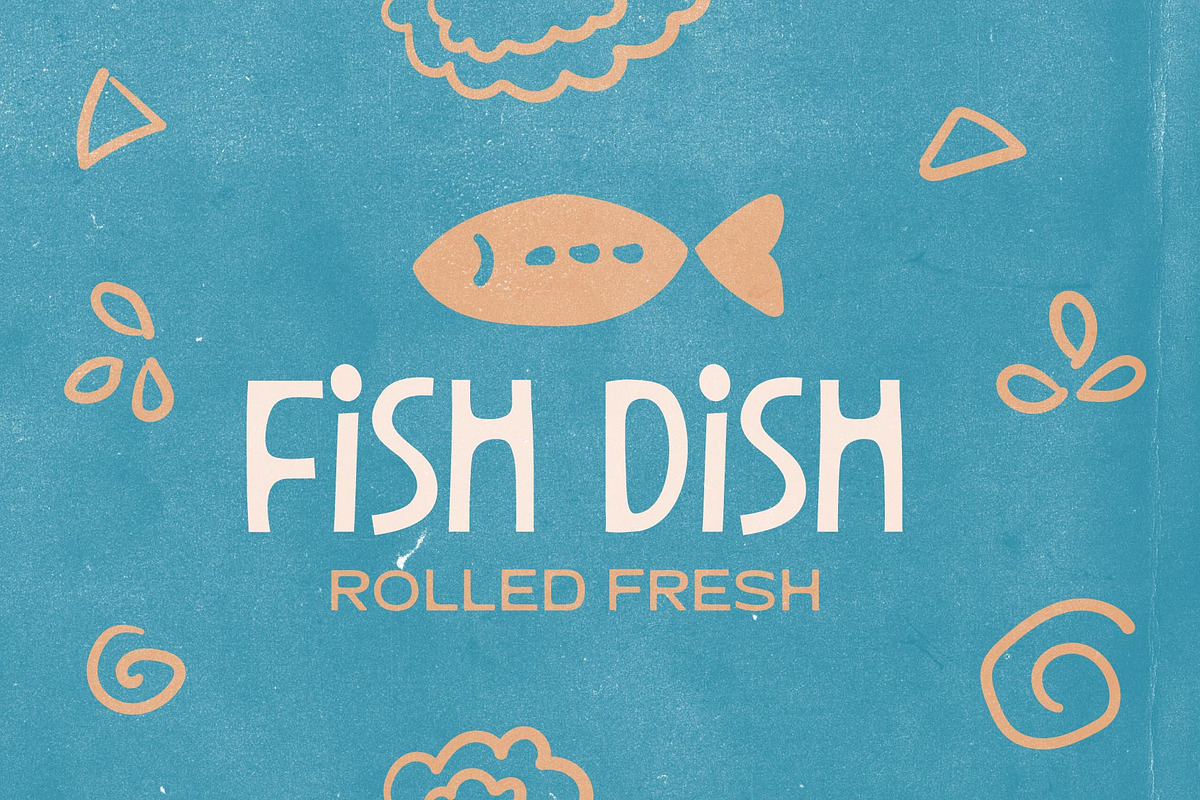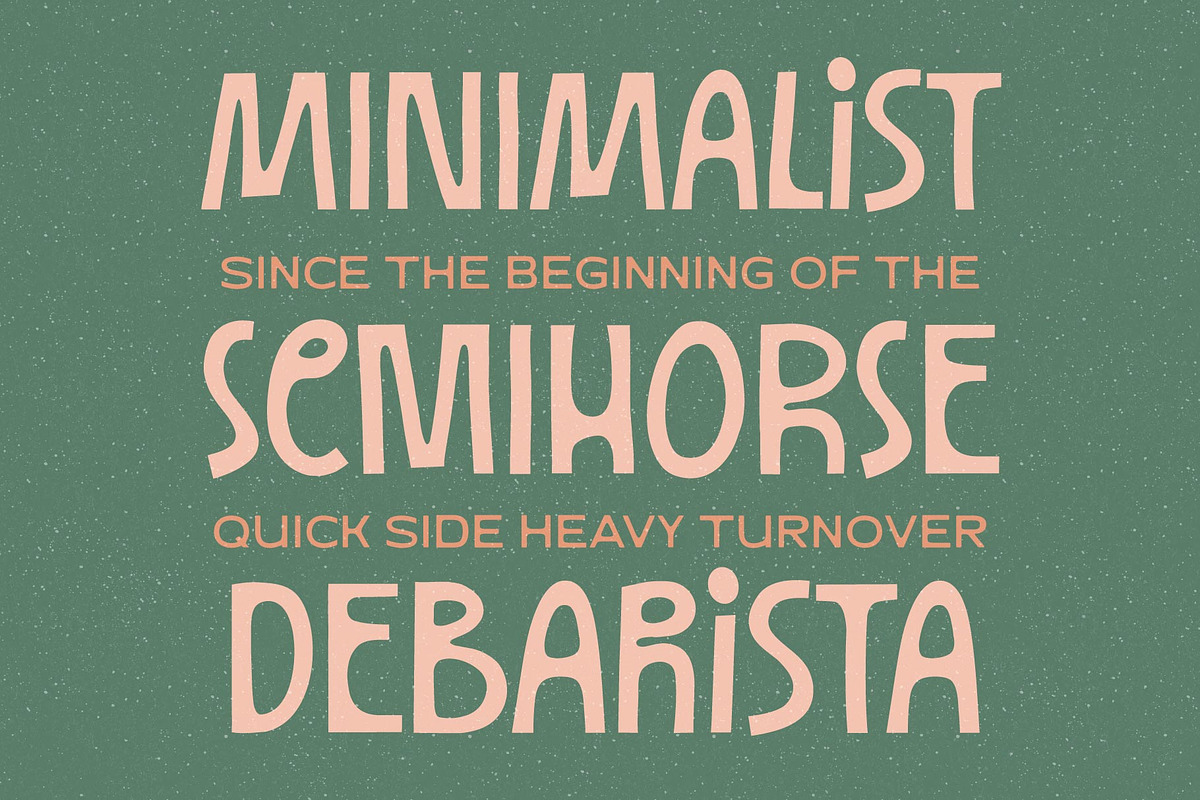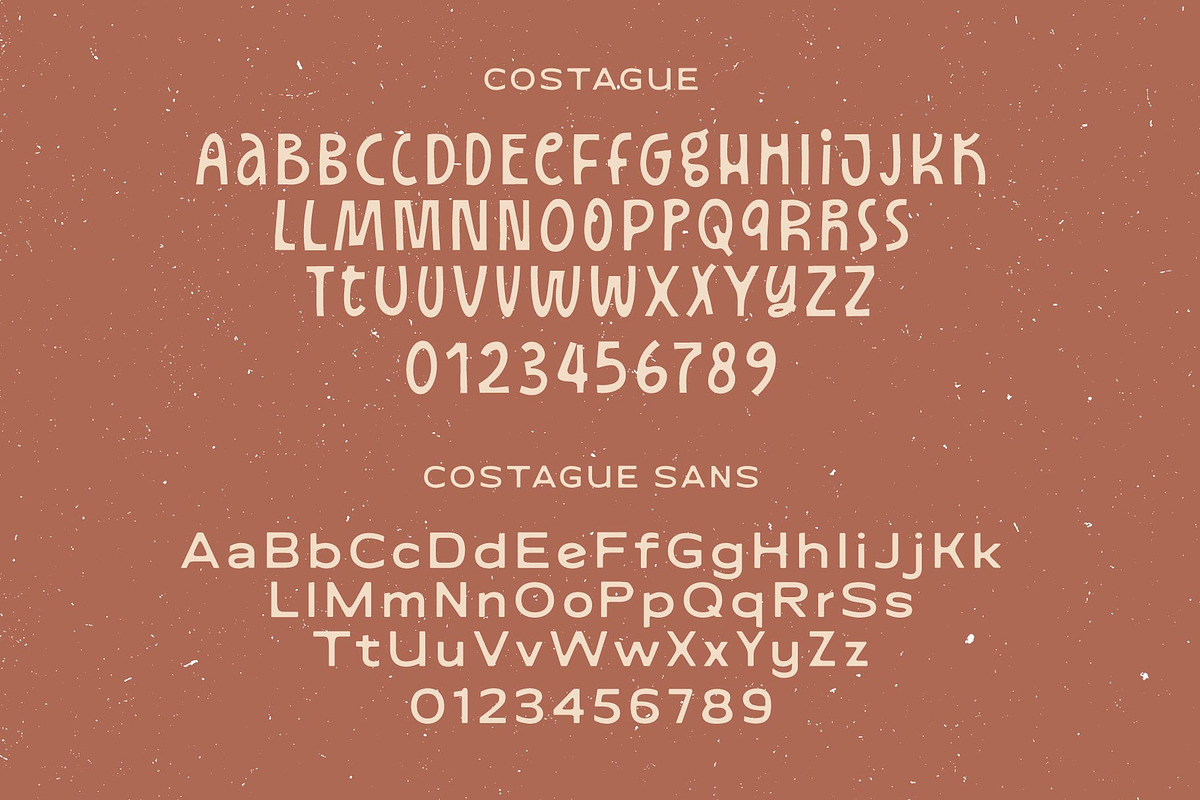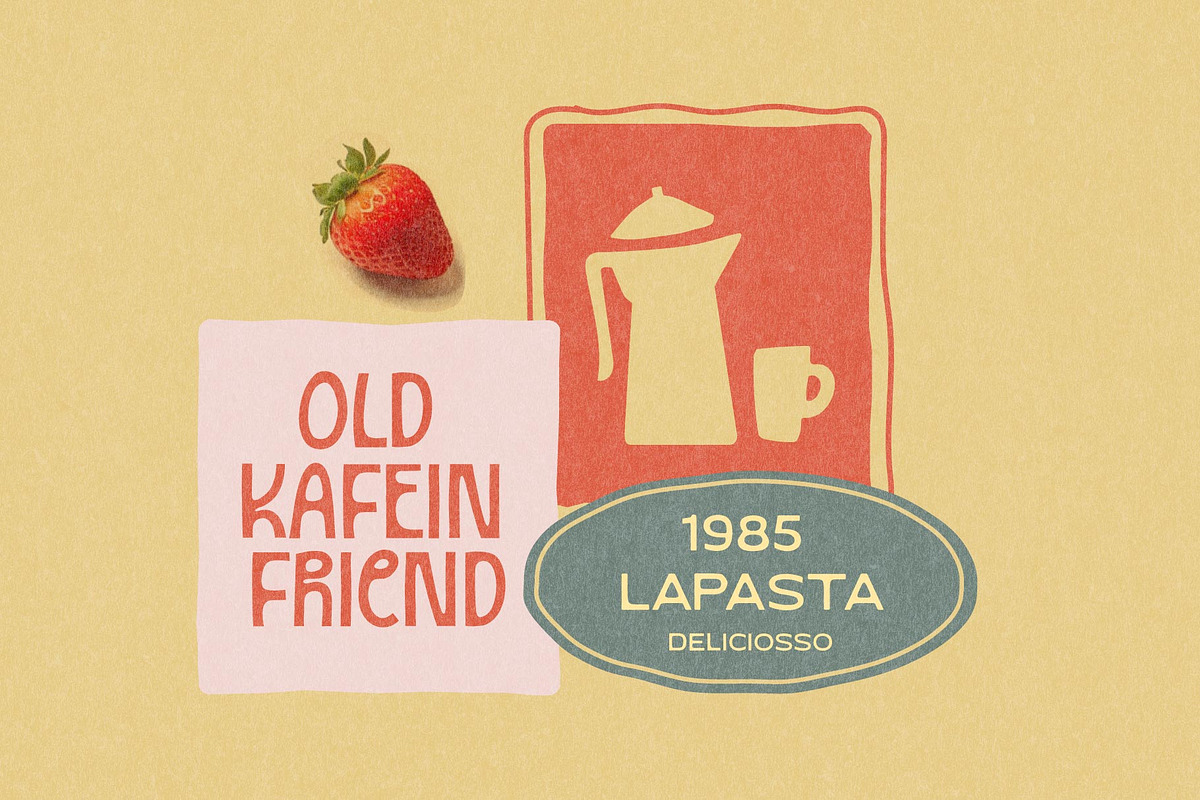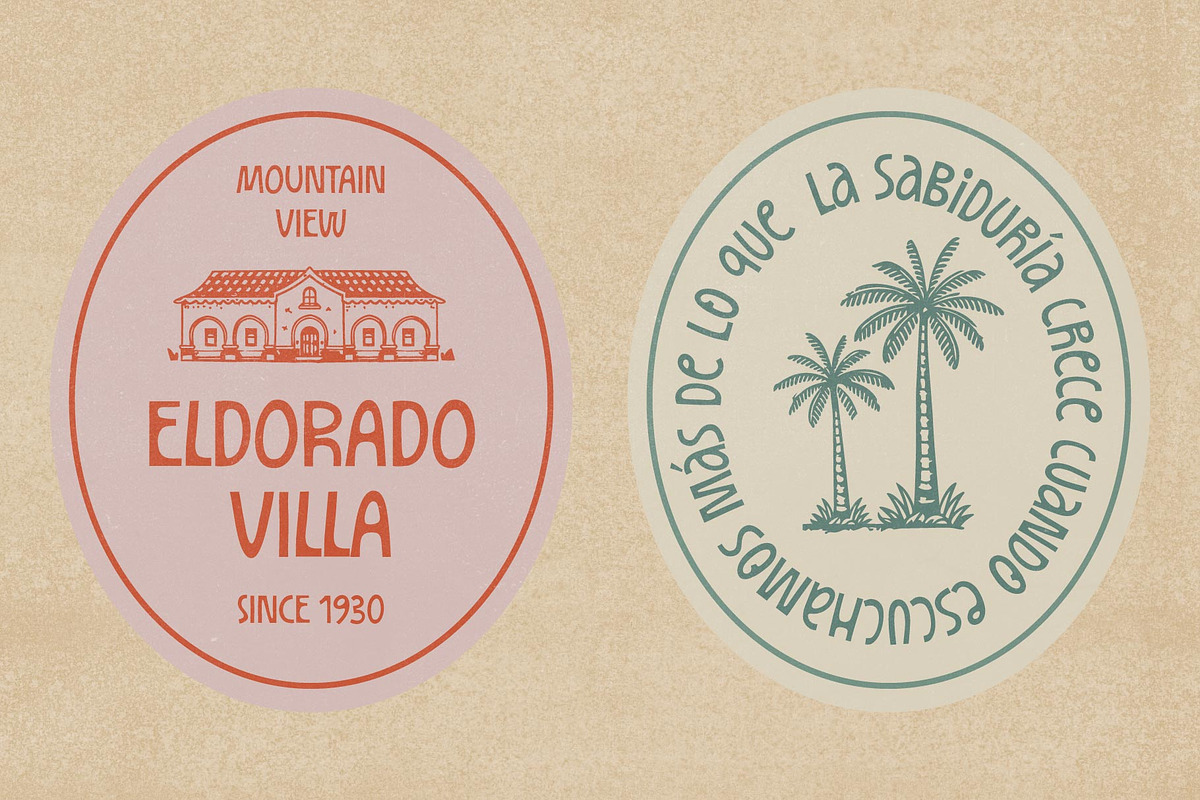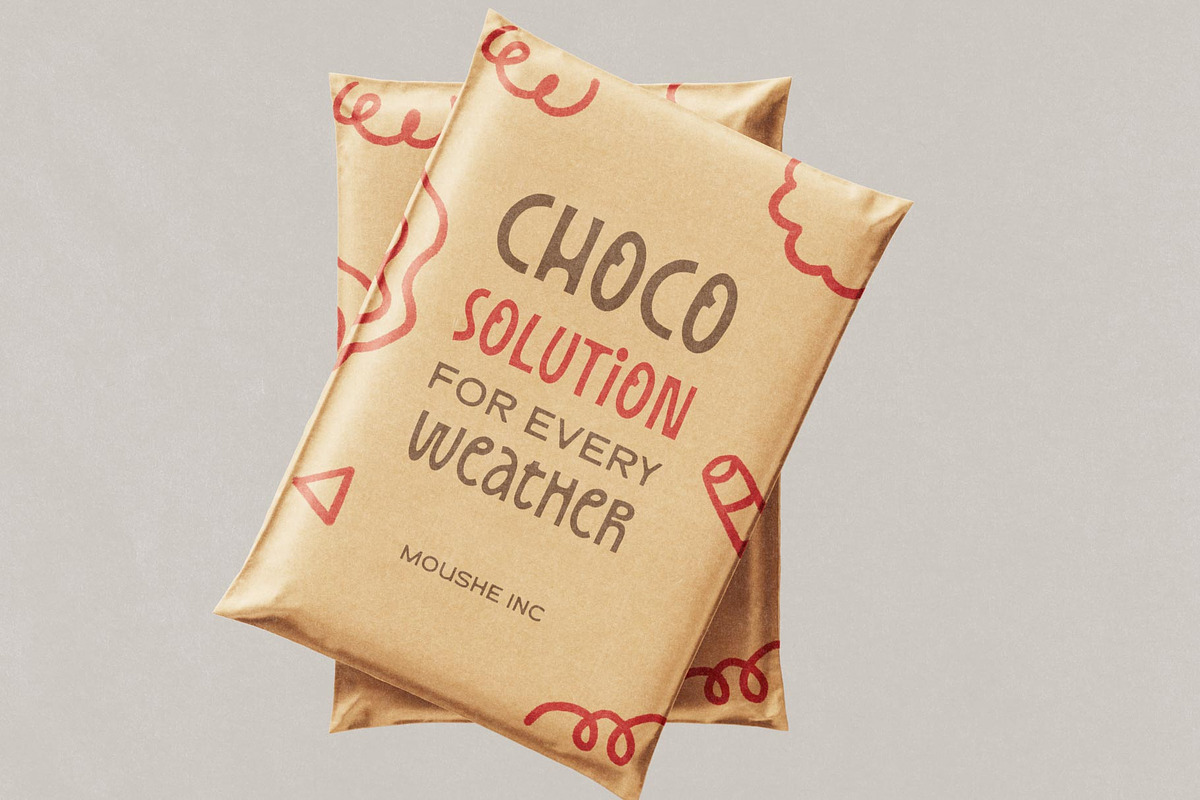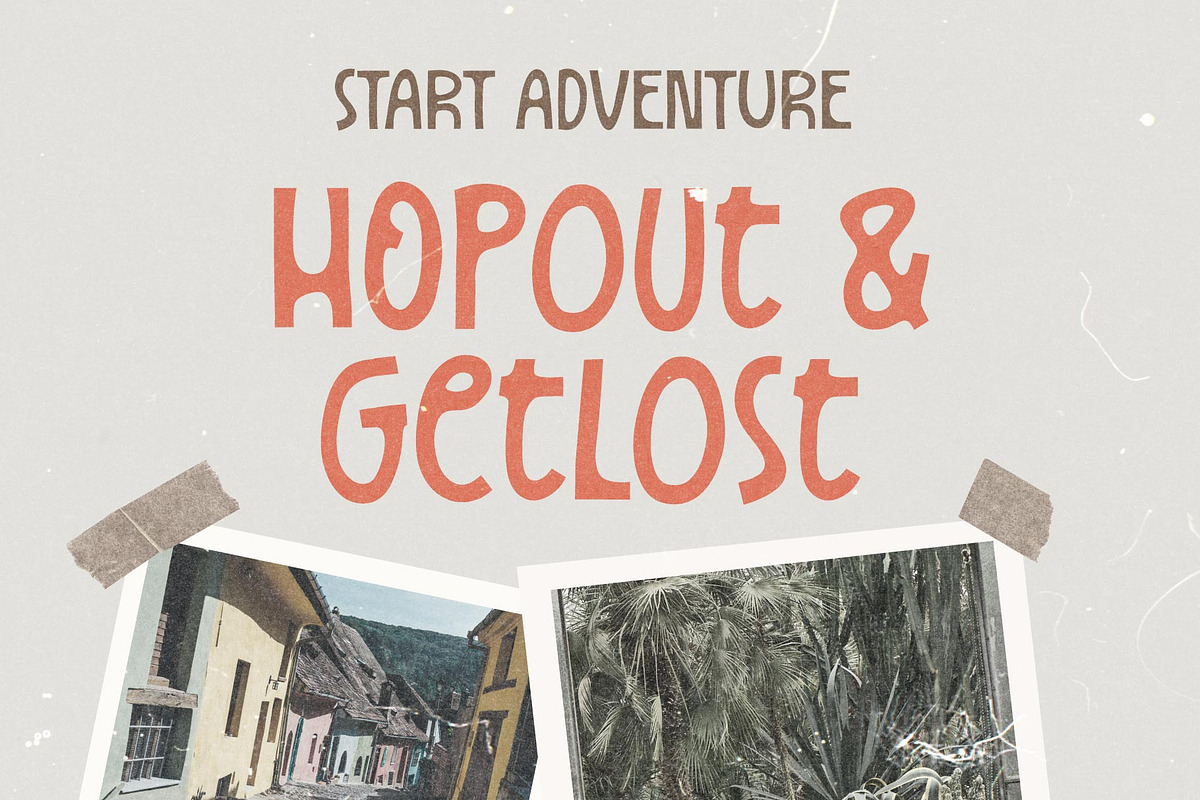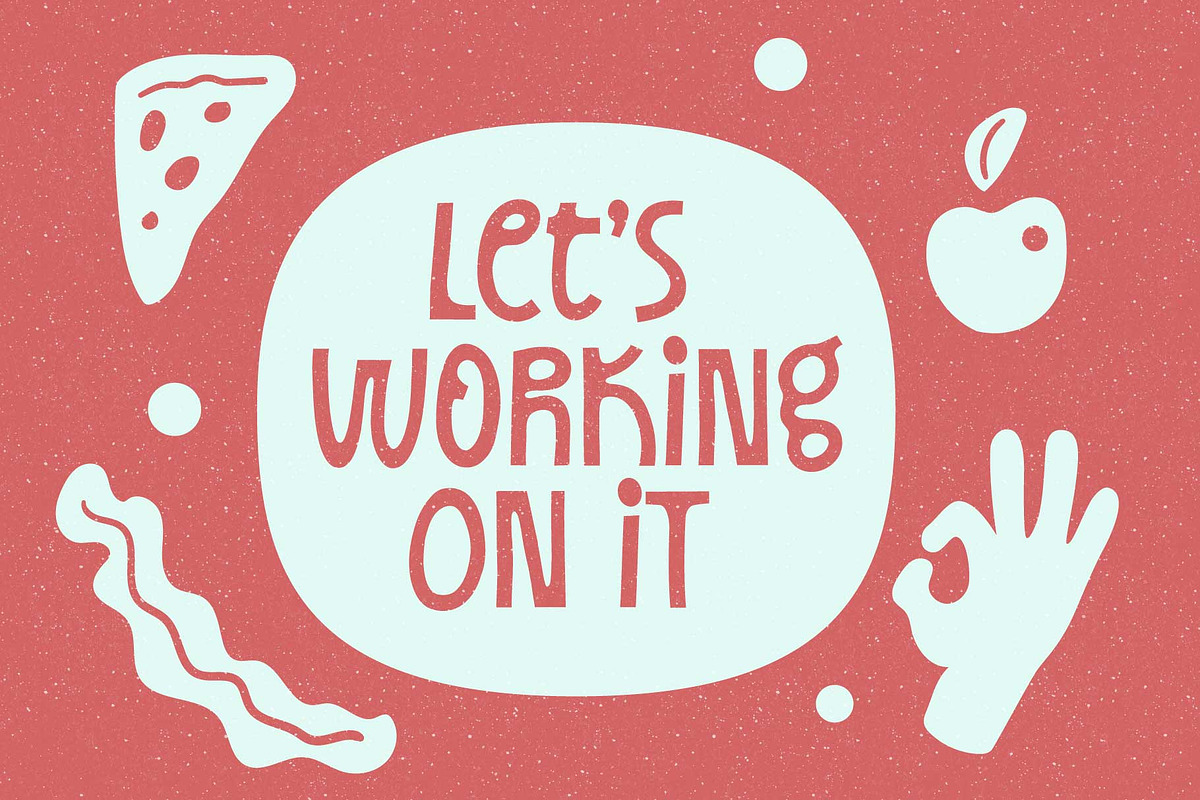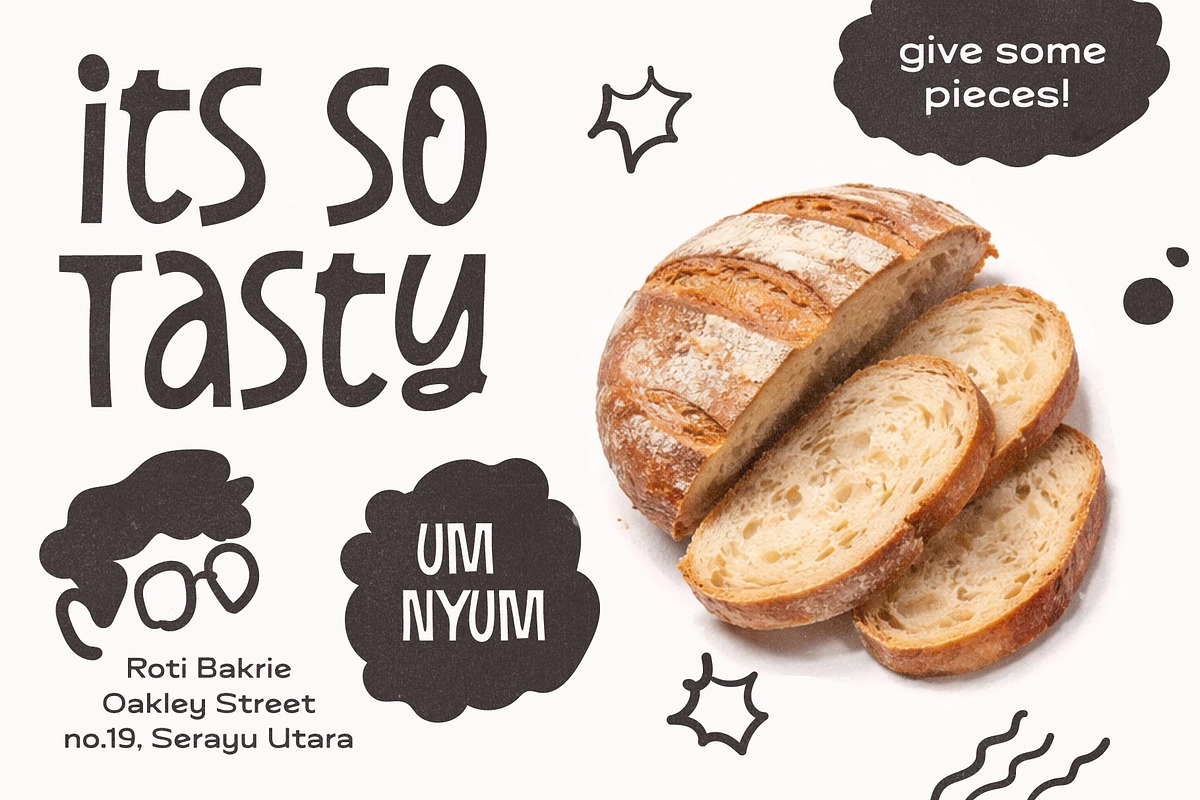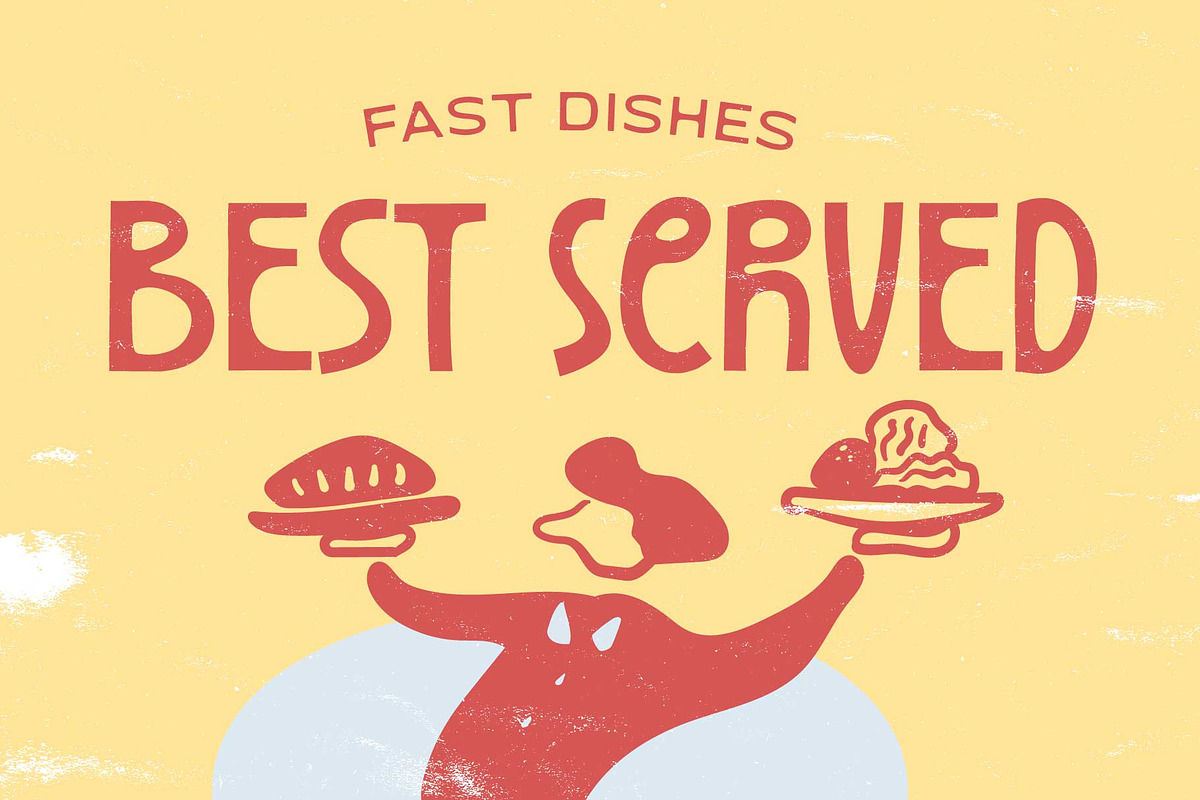
Costage; Eccentric Font Duo
Costage is an eccentric display font duo that pairs a distinctive display style with a clean sans companion. Designed with semi-condensed letterforms, Costage delivers a unique balance of expressiveness and structure, creating a visual character that feels playful yet refined. Its unconventional details bring a sense of joy and personality. Perfectly suited for branding, product packaging, eye-catching headlines, and print applications, Costage stands out in creative projects that demand character and memorability. Whether used boldly in display settings or paired harmoniously with its sans counterpart, Costage offers designers a flexible typographic system for expressive and impactful visual storytelling.